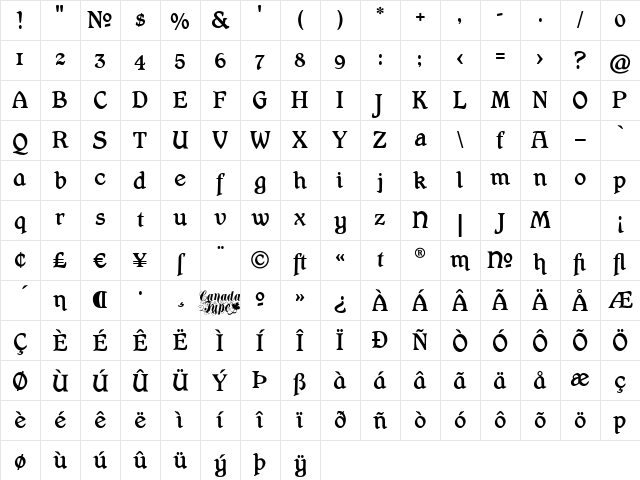
Hamlet OsF Regular Free Font
Hamlet OsF Regular
Foundry: Canada Type
Design Context for Hamlet OsF
Hamlet OsF is a composed and adaptable typeface that performs quietly and consistently across a wide range of design contexts.
Who designed the Hamlet OsF Regular font?